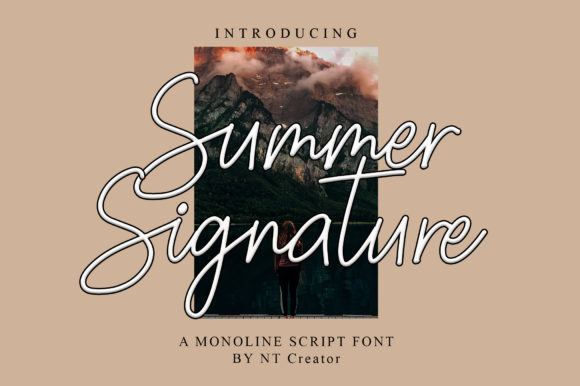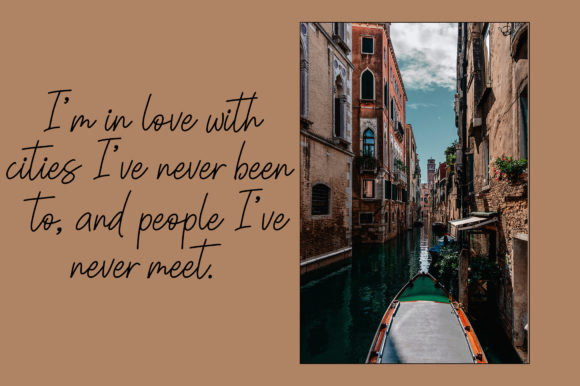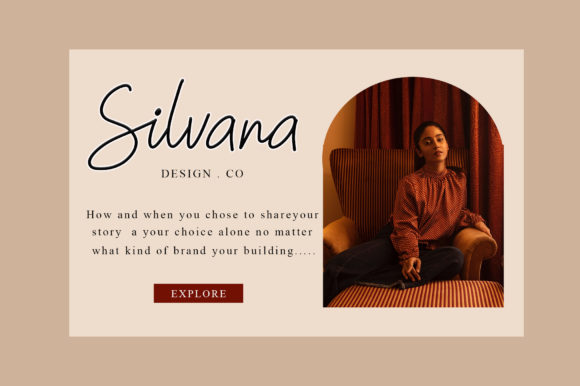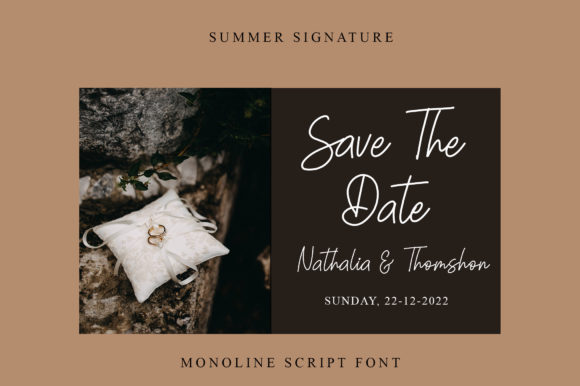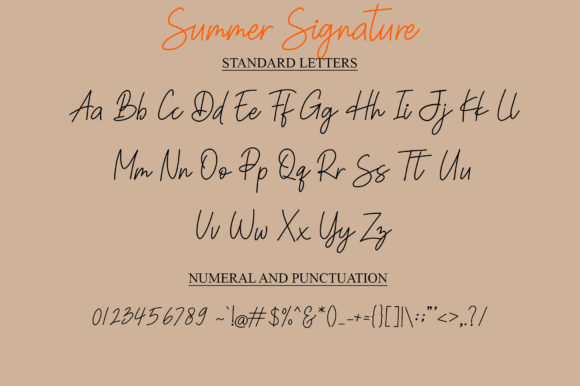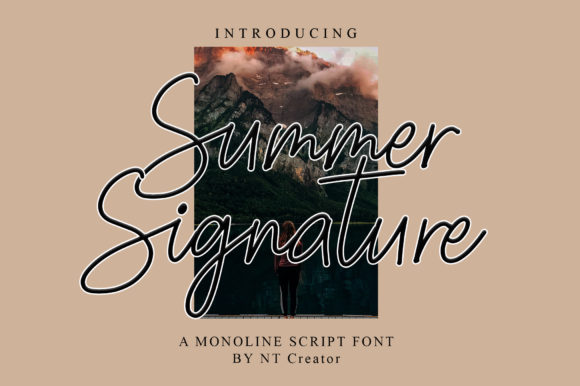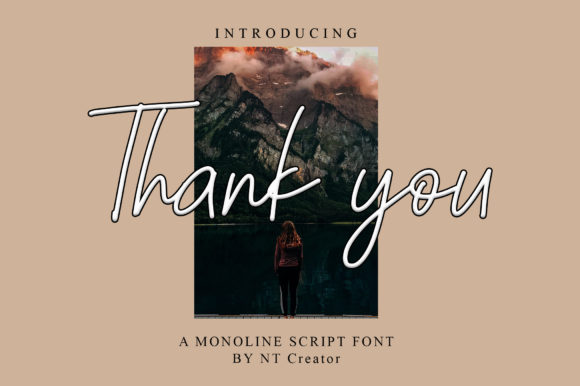
Summer Signature Font
About Summer Signature Font
Introducing “Summer Signature,” a thin and beautiful handwritten font that is sure to capture your heart. With its distinct and well-rounded letters, this font is a true masterpiece. Get ready to fall in love with its incredible versatility and use it to create stunning designs!
The beauty of “Summer Signature” lies in its delicate and graceful appearance. The thin strokes and smooth curves give the font an elegant and refined look, making it perfect for adding a touch of sophistication to your designs. Each letter is meticulously crafted, showcasing attention to detail and a sense of artistry.
The versatility of “Summer Signature” allows it to adapt to a wide range of design projects. Whether you’re working on branding materials, logos, wedding invitations, product packaging, or social media graphics, this font will make your designs shine. Its thin and beautiful style adds a sense of delicacy and finesse to any composition.
One of the key features of “Summer Signature” is its well-rounded letters. The curves and lines flow seamlessly, creating a harmonious and pleasing visual rhythm. This attention to detail adds a level of craftsmanship to your designs and enhances the overall aesthetics.
With its versatile style, “Summer Signature” can be used for both formal and informal designs. It can bring an air of elegance to wedding invitations, event posters, or high-end branding projects. At the same time, it can add a touch of sophistication to casual designs like quotes, social media posts, or personal stationery.
Whether you’re a professional designer or an enthusiast with a passion for creativity, “Summer Signature” will be a valuable addition to your font library. Its versatile style and distinct letterforms offer endless possibilities for creating spectacular designs that leave a lasting impression.
So, embrace the beauty of “Summer Signature” and let its thin and beautiful handwritten style inspire your creativity. With its well-rounded letters and incredible versatility, this font is ready to bring your designs to new heights. Get ready to make a statement and captivate your audience with the elegance of “Summer Signature”!